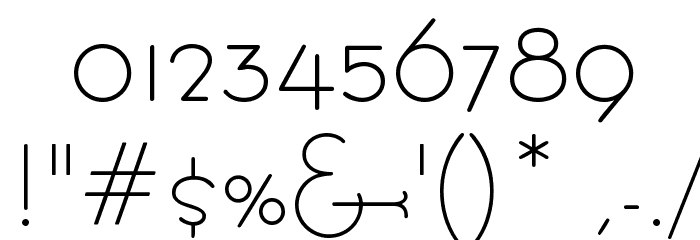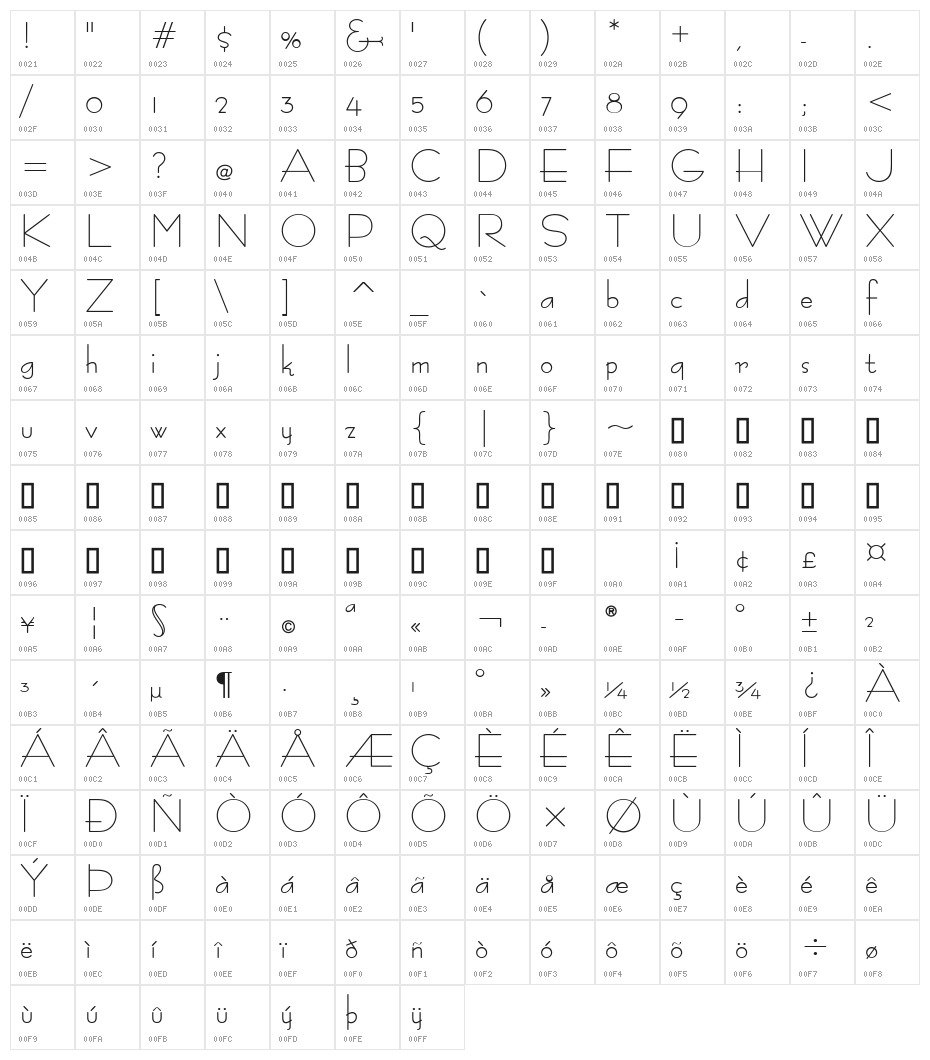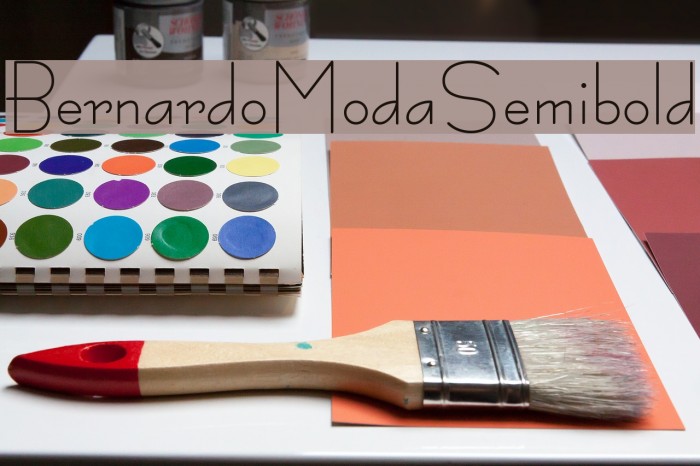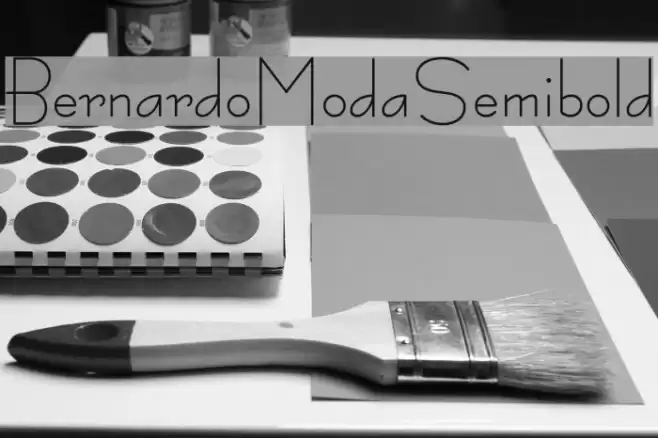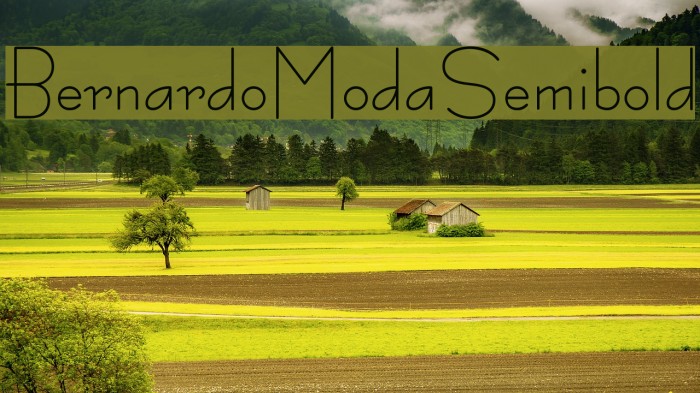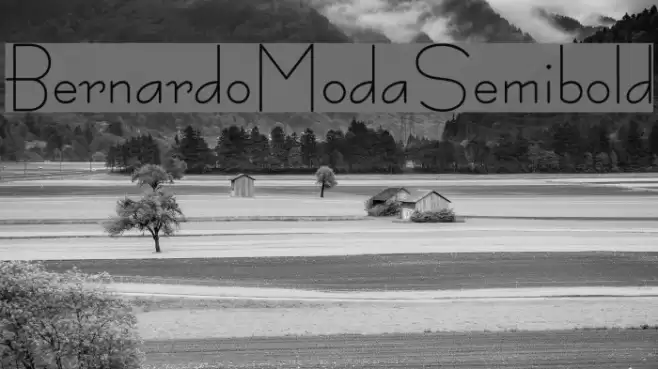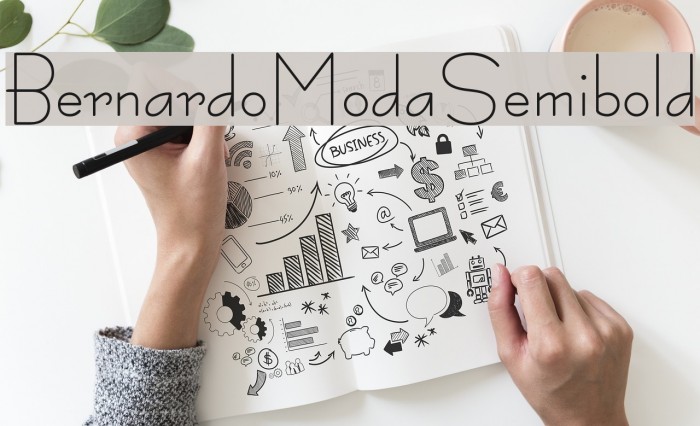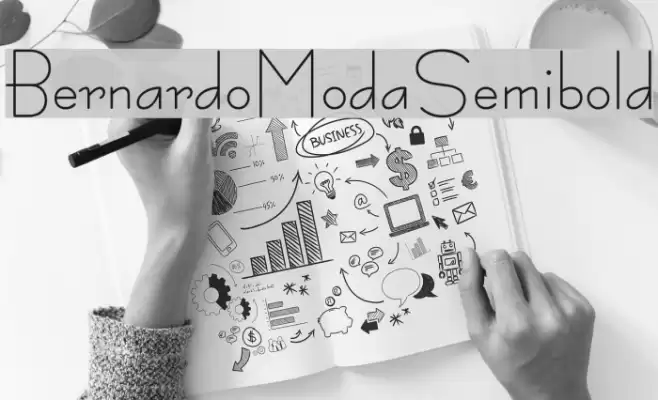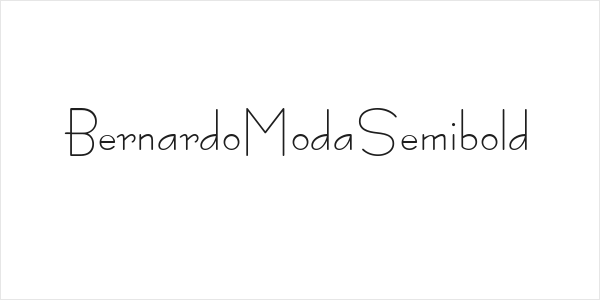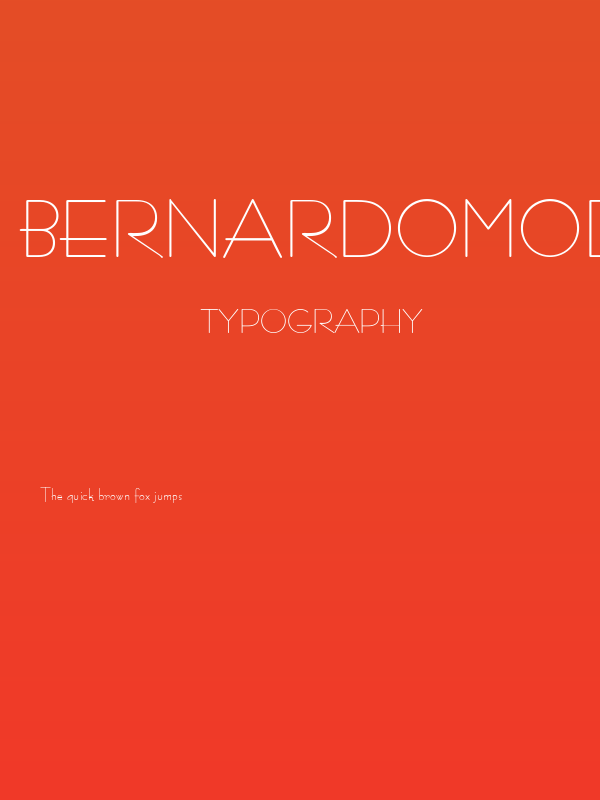
BernardoModaSemibold Font
BernardoModaSemibold Description
This font features a clean and modern design with a geometric structure. The uppercase letters are tall and elegant, with a consistent stroke width that gives them a sleek appearance. The lowercase letters maintain a similar style, with rounded edges that add a touch of softness to the overall look. The numerals are well-proportioned and align perfectly with the letterforms, ensuring readability. Special characters are thoughtfully designed, maintaining the font's cohesive style. This font is versatile, suitable for both digital and print media, and can be used to create a contemporary and sophisticated aesthetic.